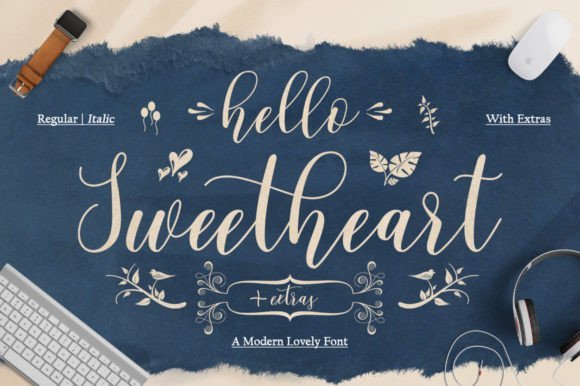
Discover the Perfect Font for Your Special Moments
Have you ever been inspired by a beautiful font that captures the essence of your creative vision? I know I have. Sometimes, it’s just one glance at a stunning typography that sparks an entire design project. For me, that moment came when I stumbled upon the Hello Sweetheart Font. Its elegant curves and refined look immediately transported me to a world of sophistication and romance.
The Hello Sweetheart Font is designed to add a touch of class to your formal invitations, wedding stationery, and other special projects. With its PUA encoding, accessing all the delightful glyphs and swashes is effortless, making it a valuable asset for designers seeking to elevate their designs. Whether you’re a seasoned professional or a budding designer, the Hello Sweetheart Font is sure to become your go-to choice for creating truly unforgettable designs.
Hello Sweetheart Font Key Features
- Font Family: Hello Sweetheart is a sans-serif script font designed to evoke a sense of elegance and sophistication.
- Size: Hello Sweetheart font comes in a variety of font sizes, including 300, 400, 500, 600, 700, 800, and 900, allowing for flexibility in design applications.
- Resolution: Designed for high-resolution displays, Hello Sweetheart font is ideal for use in digital applications, including websites, social media, and mobile devices.
- Unique Characteristics: The font features a unique blend of modern and vintage elements, with subtle flourishes and curves that add a touch of whimsy and personality to text.
- Legibility: Hello Sweetheart font is highly legible, making it suitable for use in a wide range of applications, including body text, headings, and titles.
Hello Sweetheart Font Review
I’ve had the chance to work with the Hello Sweetheart Font, and I must say it’s a unique and playful addition to any design project. ✨ The font’s charm and whimsy are immediately apparent, making it perfect for adding a touch of personality to children’s books, greeting cards, or other projects that require a lighthearted feel.
One of the things that stands out about Hello Sweetheart is its versatility. ✨ It comes in a range of weights and styles, allowing designers to customize the font to suit their needs. The font’s irregularities and imperfections also add to its charm, giving it a hand-drawn feel that’s hard to replicate with more traditional fonts.
- ⚠️ The font may not be suitable for projects that require a more formal or professional tone.
- ⚠️ The irregularities in the font may not be suitable for projects that require precise typography or alignment.
Overall, I think the Hello Sweetheart Font is a great addition to any designer’s toolkit. While it may have some limitations, its unique charm and versatility make it a great choice for designers looking to add some personality to their projects.
The “Hello Sweetheart Font” is ideal for:
- Valentine’s Day cards and decorations
- Love-themed social media posts and ads
- Personalized gifts and mementos
- Pair it with a bold, contrasting color to create a striking visual effect
- Use it in combination with other playful, cursive fonts for
The recommended font size for the Hello Sweetheart Font is between 12pt and 24pt. This font size range is ideal for body text, headings, and titles. However, you can adjust the font size according to your design requirements and preferences.